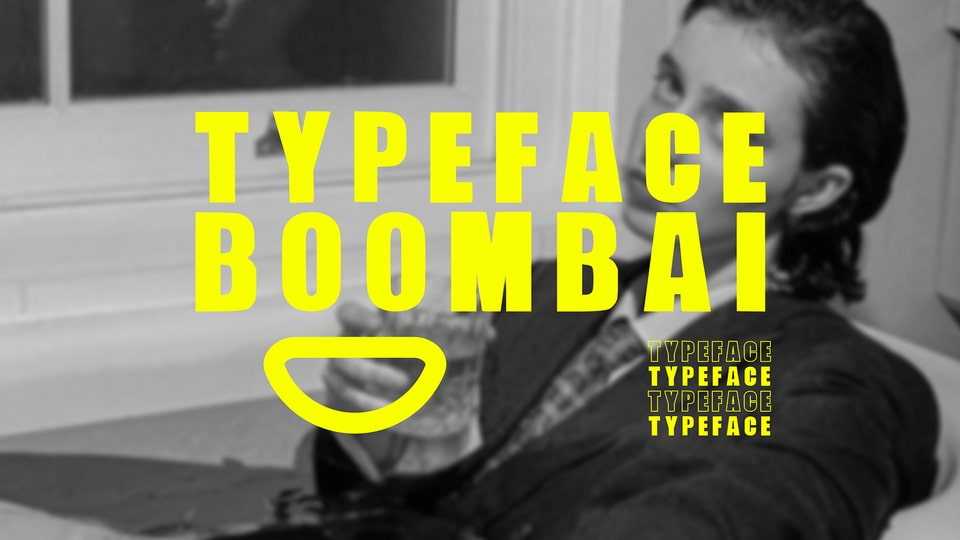
Download Boombai font, a bold and condensed sans serif typeface. Use Boombai font for display projects requiring a strong statement and eye-catching look.
Designer: Filato Studios